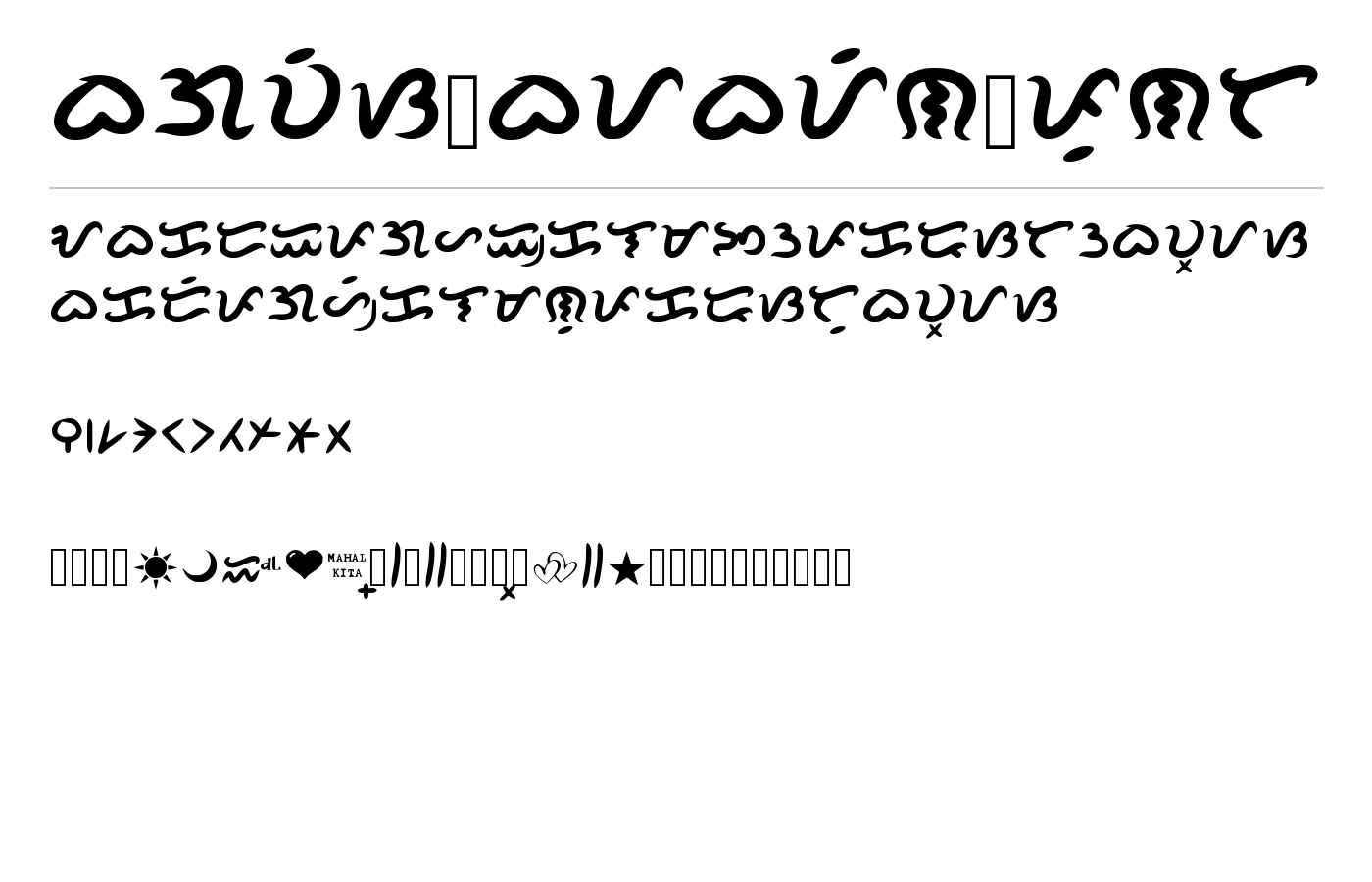
Bagwis Baybayin is a unique script font inspired by traditional Filipino Baybayin writing, featuring smooth, flowing strokes that create a hand-drawn, organic feel. Its consistent weight and rounded forms give it an approachable, cultural charm, making it ideal for designs that celebrate heritage, art, or storytelling. This font works well in creative projects, branding, and decorative headlines where an authentic, historic vibe is desired.
| Designer | EdL |